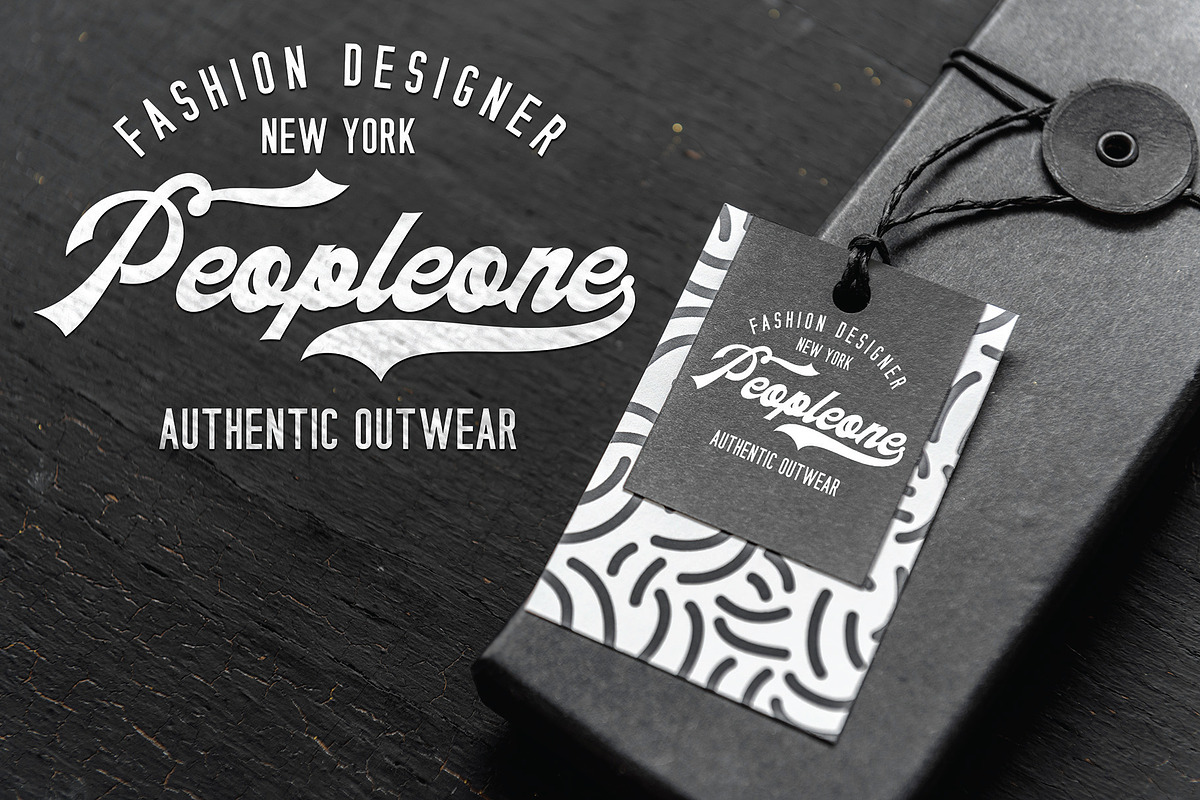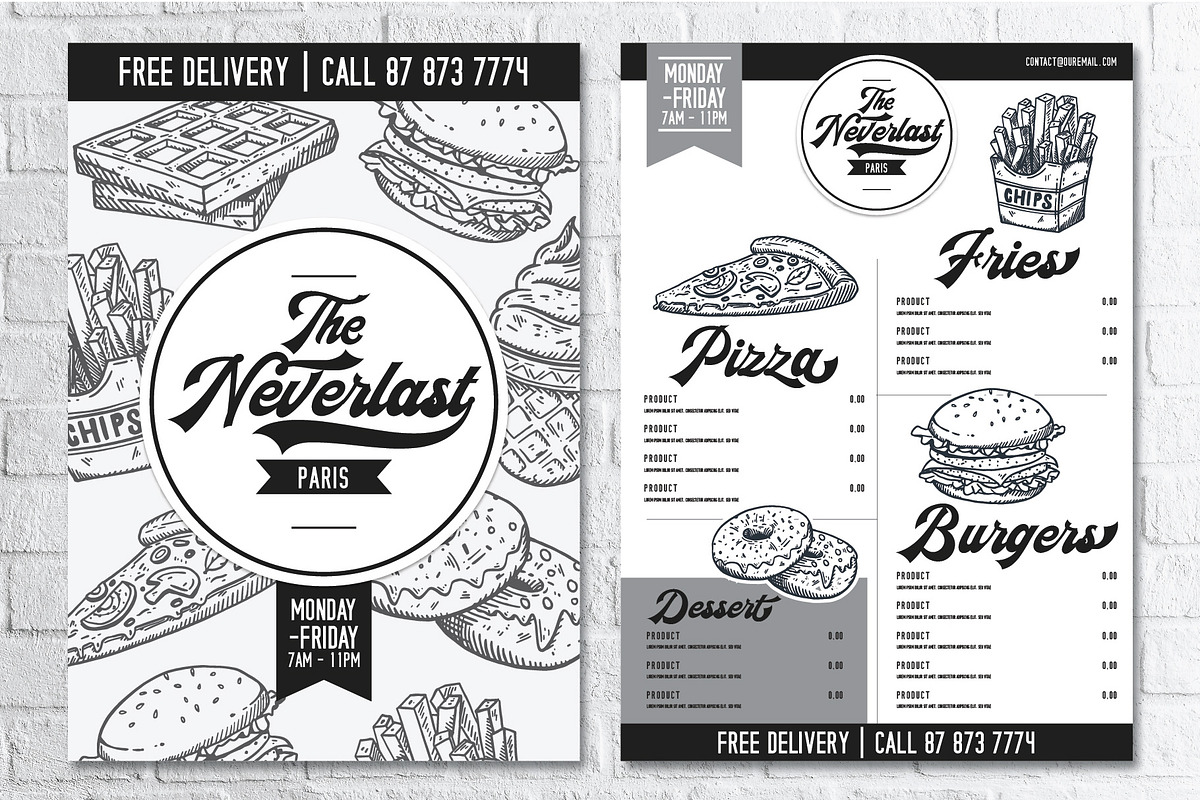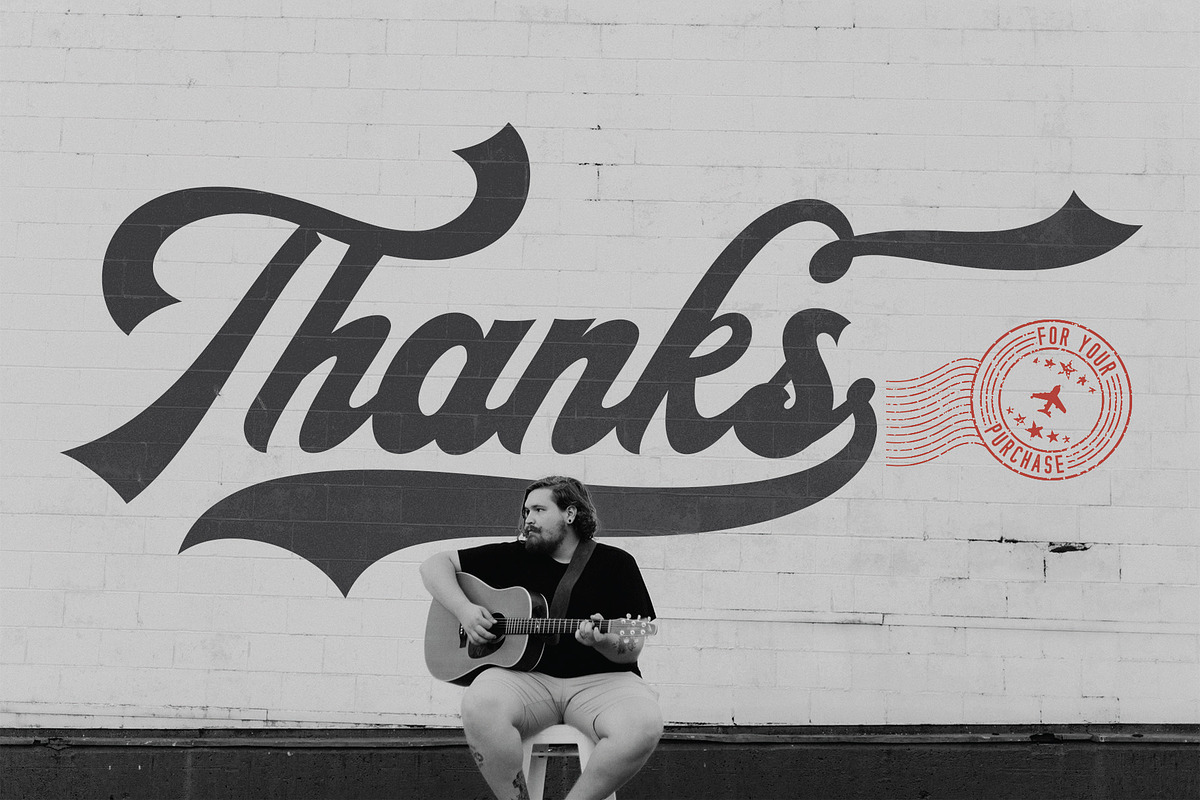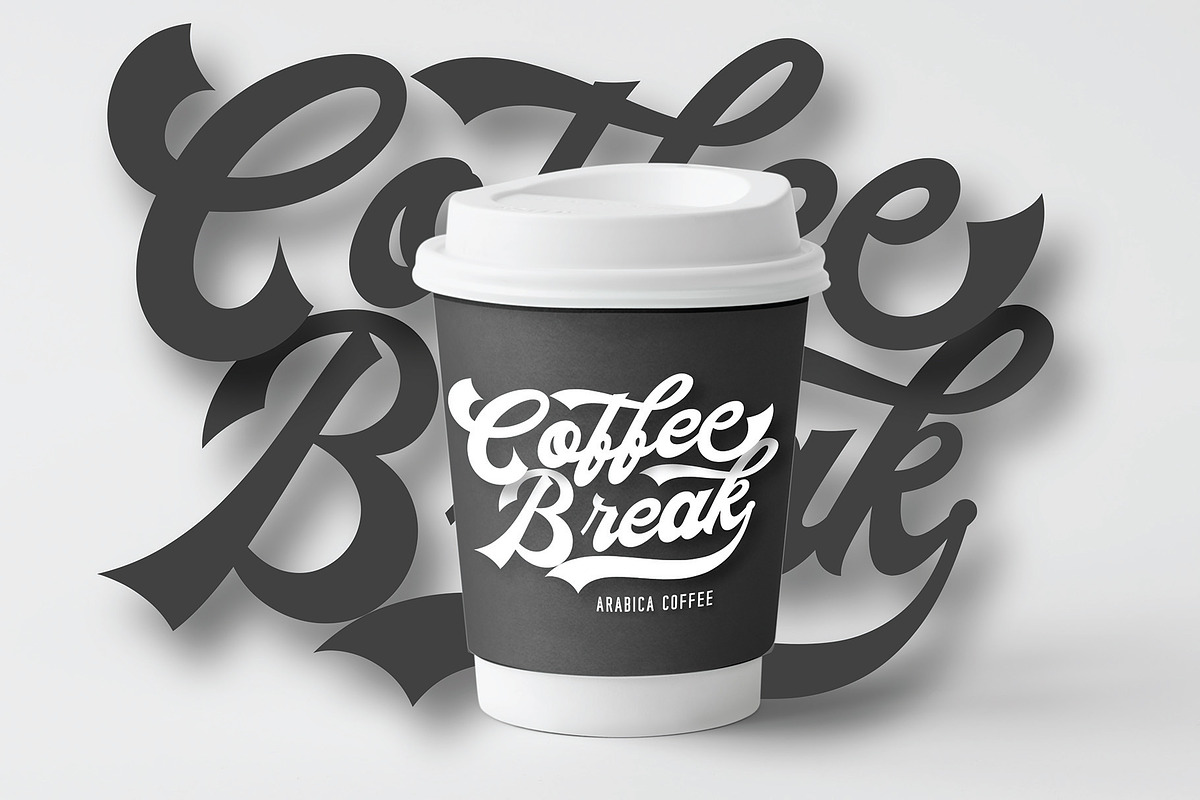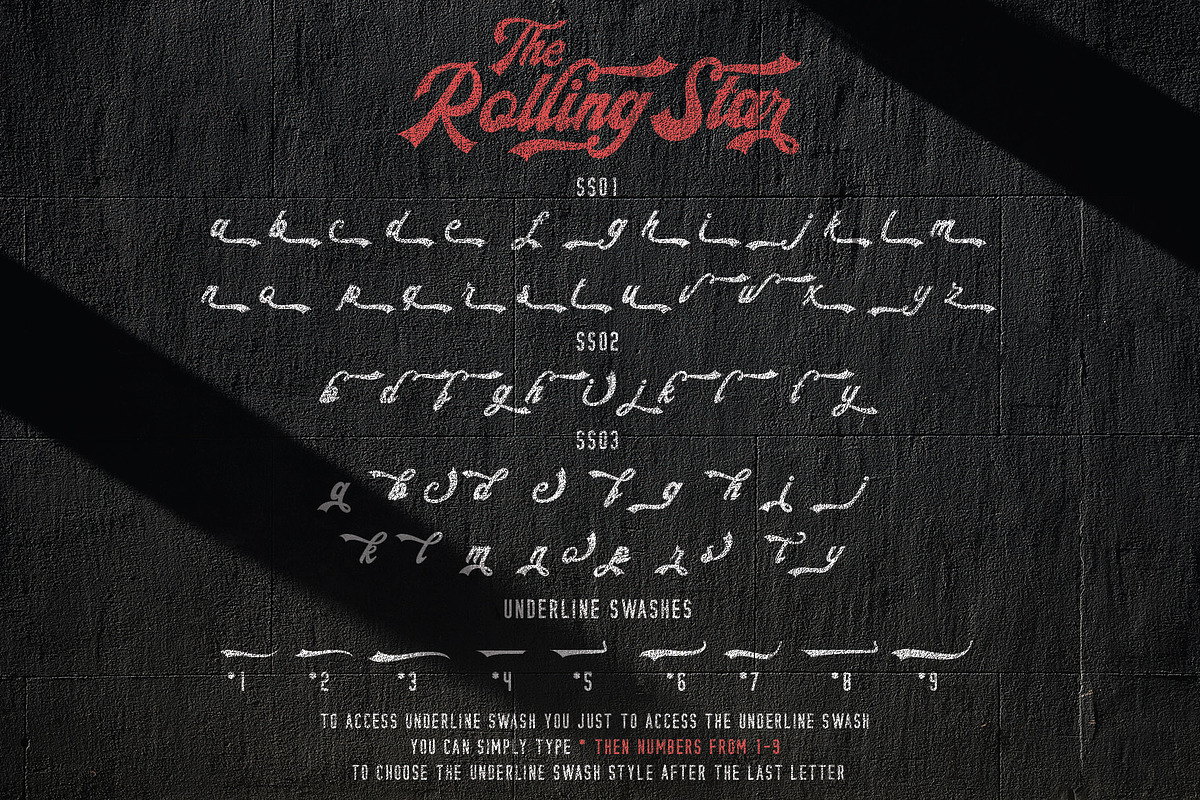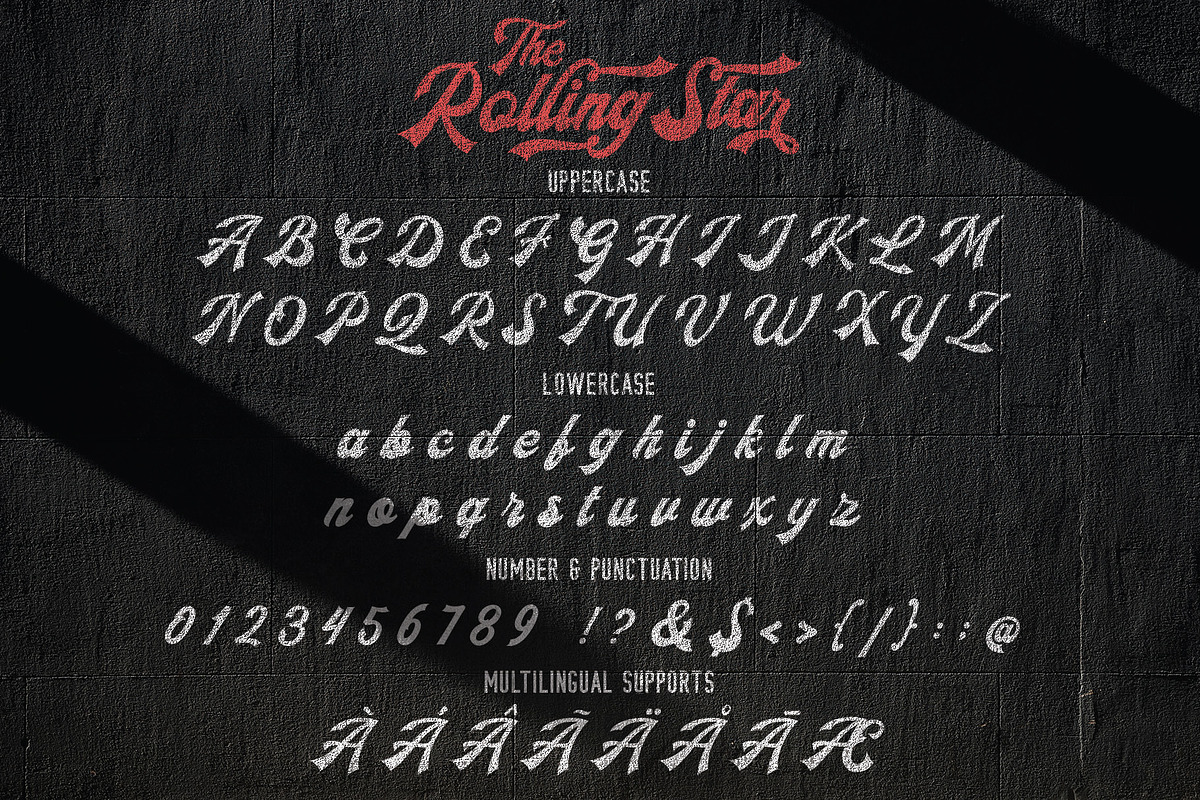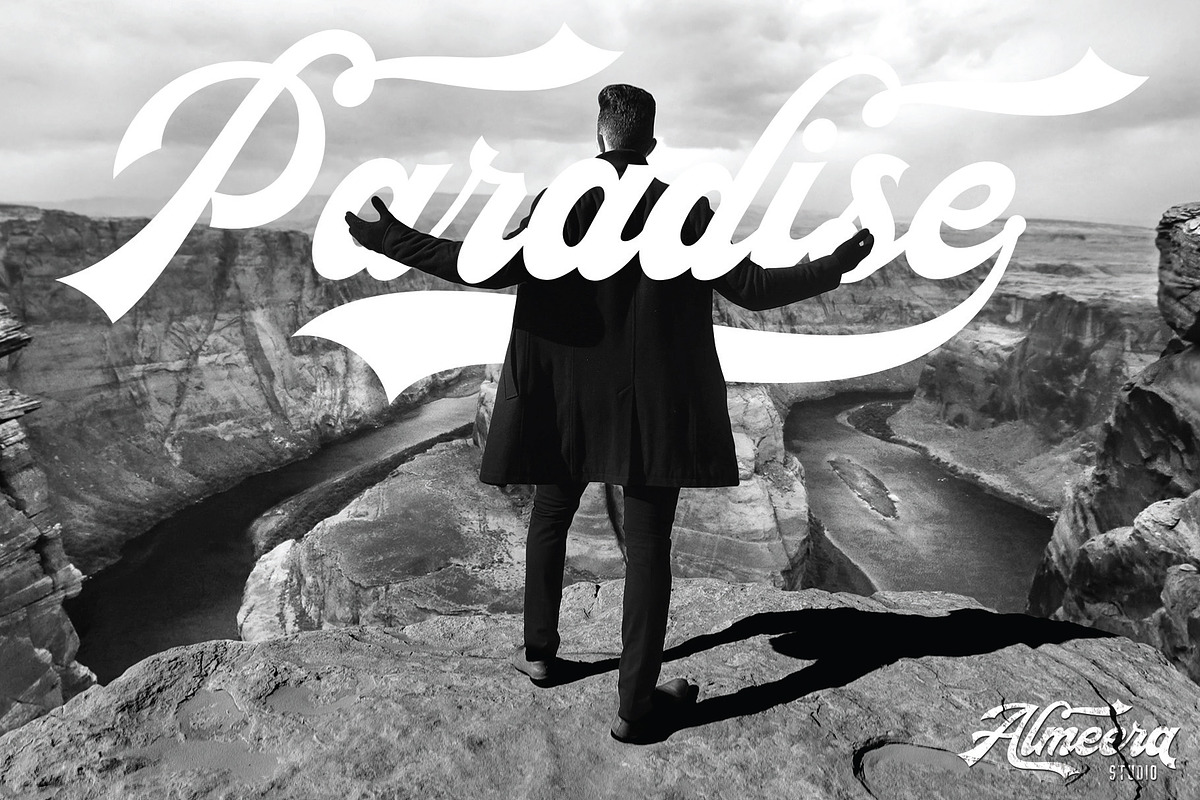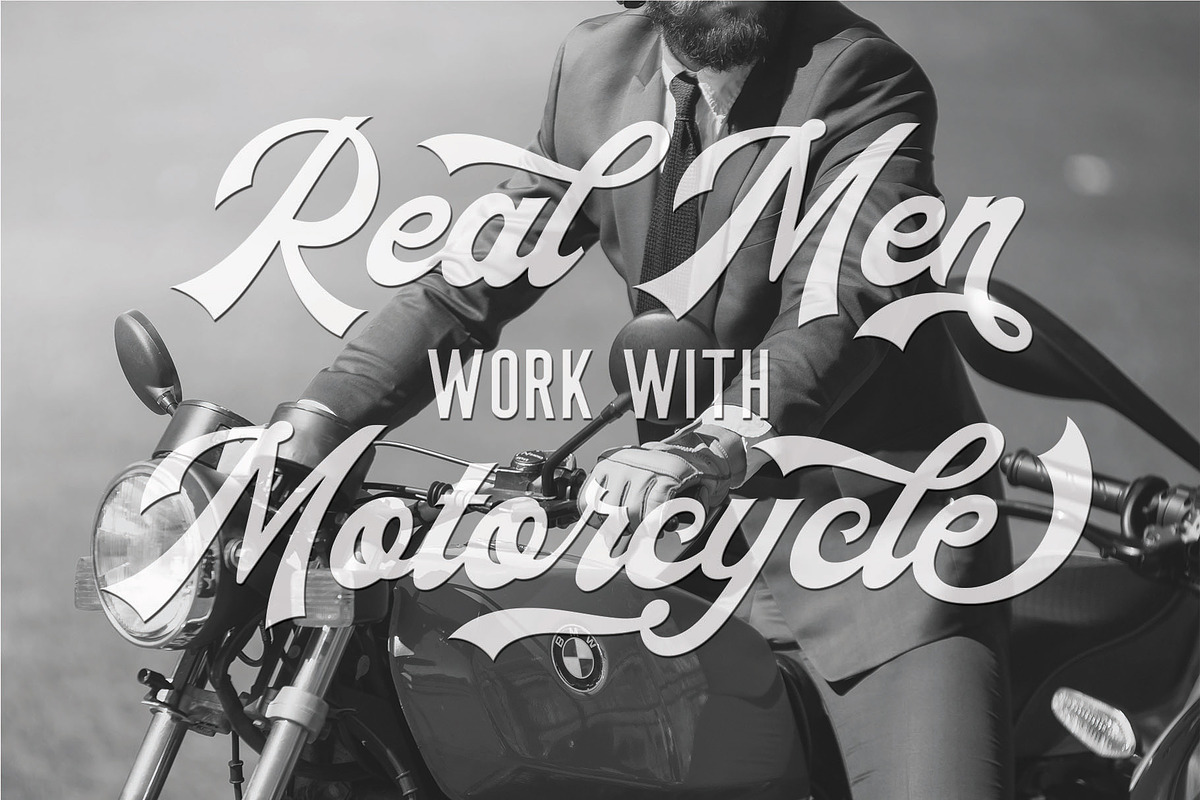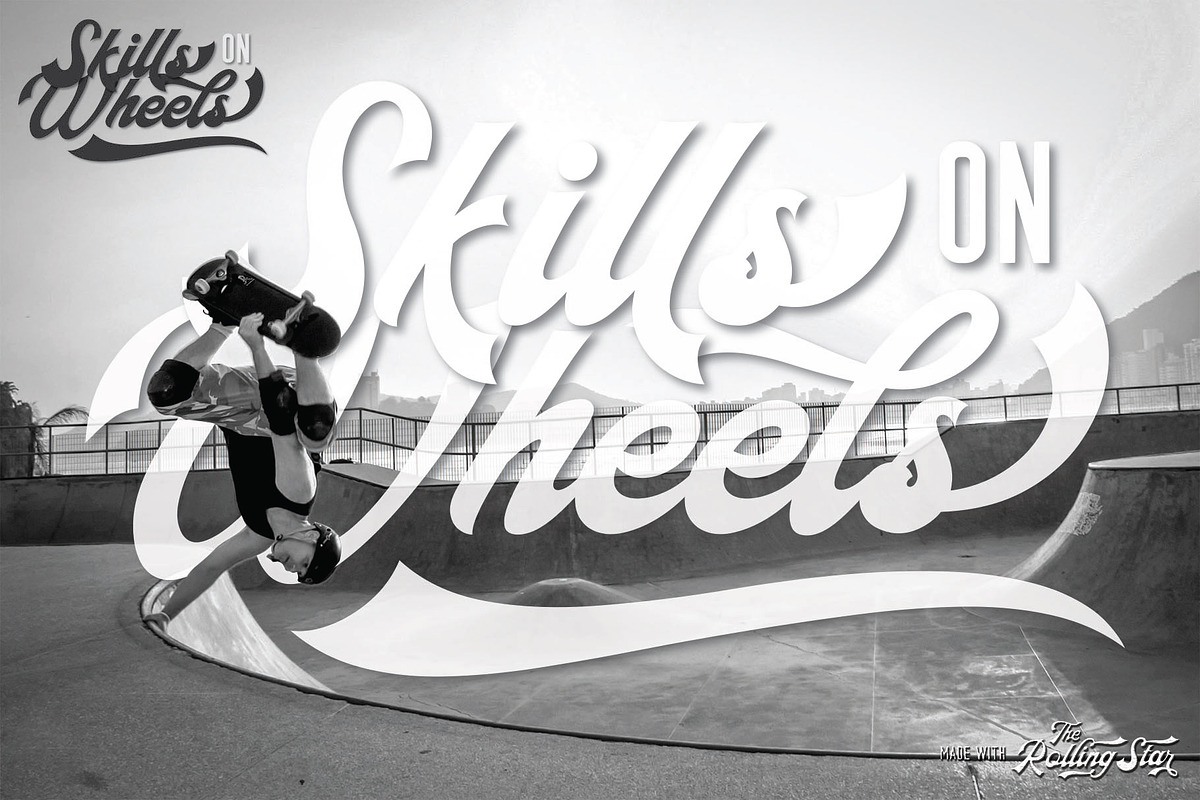
The Rollingstar - Stylish Bold Scrip
INTRODUCING THE ROLLINGSTAR - STYLISH BOLD SCRIPT
The Rollingstar is a bold script with a modern look, providing a complete style script that is guaranteed to add appeal to your logo design, brand image, Tshirt, quotes, product packaging, web, merchandise, social media posts, etc. equipped with hundreds of stylistic alternates and easy-to-access underline swash. You only need to type * followed by numbers 1-9 to choose an underline swash style that suits your design, after you type the last letter.
- Uppercase & Lowercase letters
- Stylistic Alternates & Underline swashes
- Support for Multilingual Languages